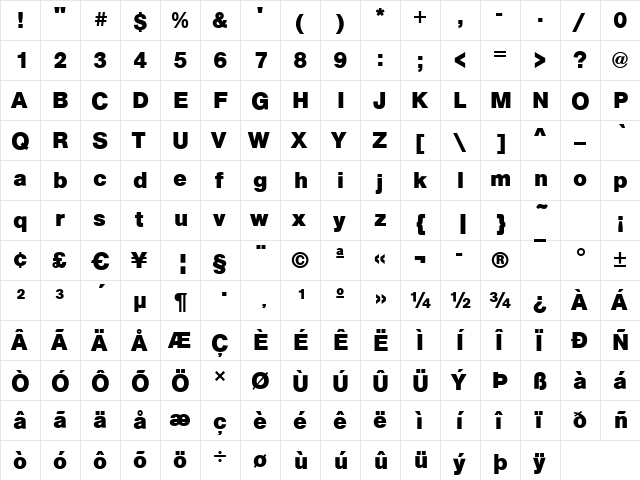
Arezzo-Bold Regular
Design Context for Arezzo-Bold Typeface
Arezzo-Bold takes a measured approach to typography — its balanced proportions and neutral character make it a reliable workhorse for both digital and print work. The heavy weight commands attention and anchors typographic hierarchies.